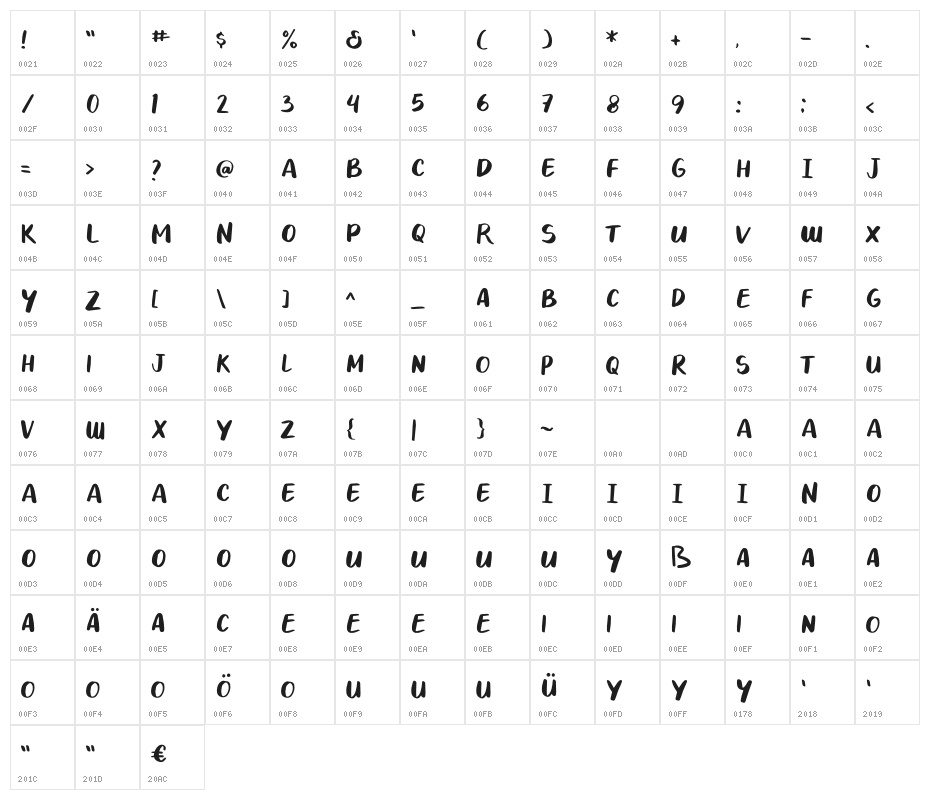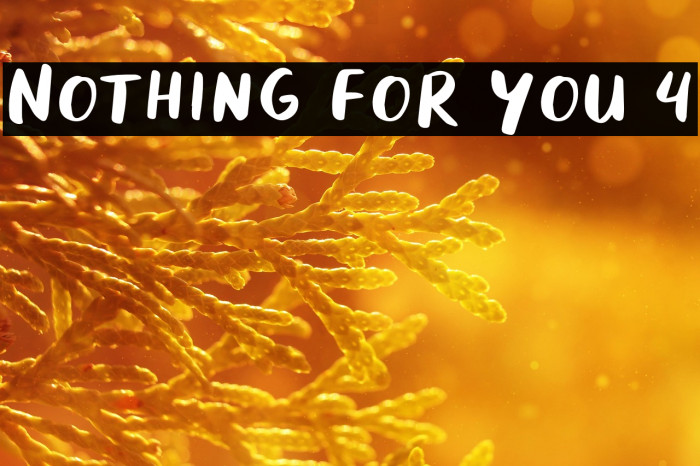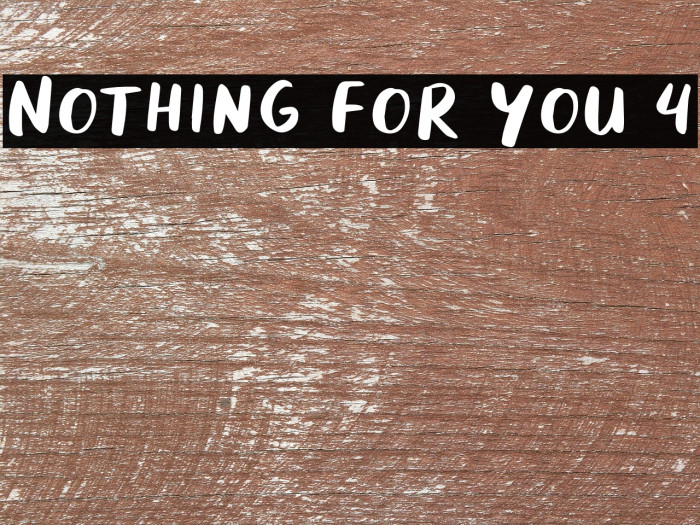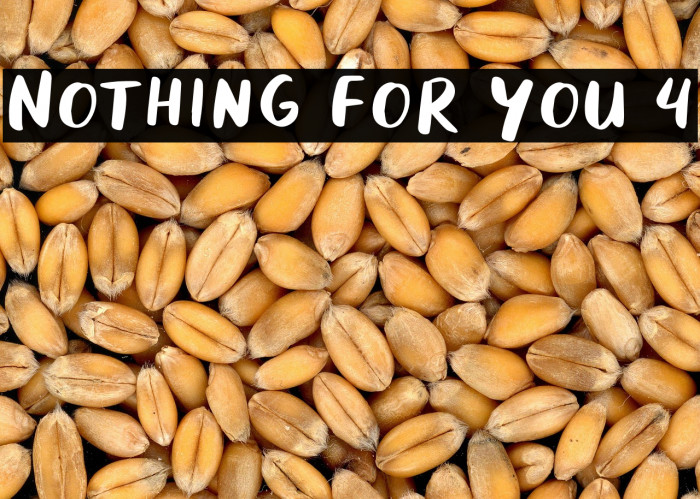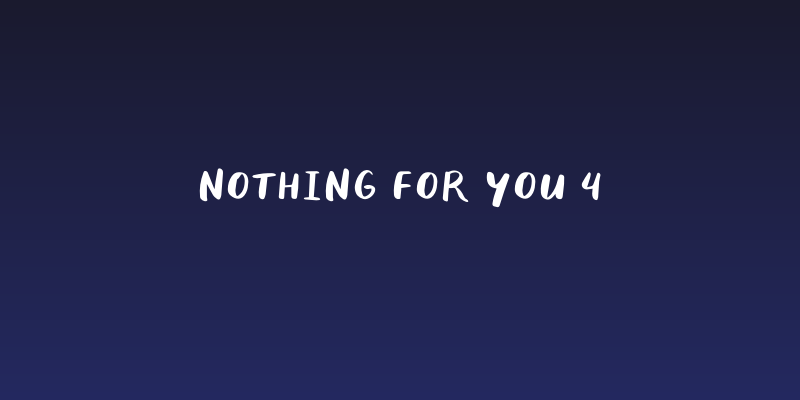
Nothing For You 4 Font
Nothing For You 4 Description
This font features a playful and energetic style with bold, rounded strokes that give it a friendly and approachable appearance. The characters are slightly slanted, adding a dynamic feel, while maintaining legibility. The uppercase and lowercase letters are consistent in style, with a smooth flow that suggests a handwritten quality. The numbers and special characters are designed to match the overall aesthetic, ensuring a cohesive look across all text elements. This font is ideal for projects that require a personal touch, such as invitations, posters, or branding materials.
| Proposed Projects | Ideal for invitations, posters, branding materials, and any project needing a personal touch. |